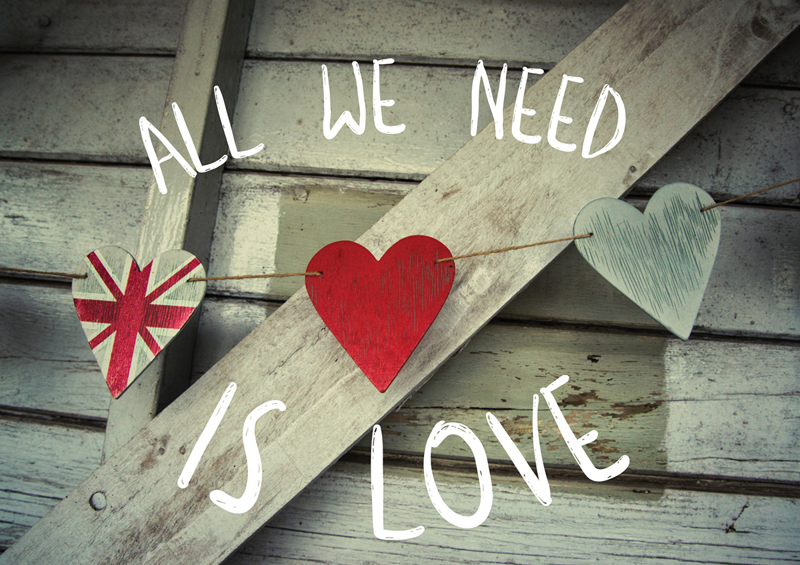
Preview and download Labai Font. Created by patch po in Script Handwritten styles with Free for personal use license.
This is Handrawn Brush Font, great for design, element design, wedding, event, t-shirt, logo, badges, sticker, and awesome work about summer. Please report if you find any bugs or have some problems with this font. This font is free for personal use only. If you'd like to purchase it for commercial use, please purchase a license at: https://www.creativefabrica.com/product/labai/ https://patchpo.com/ |